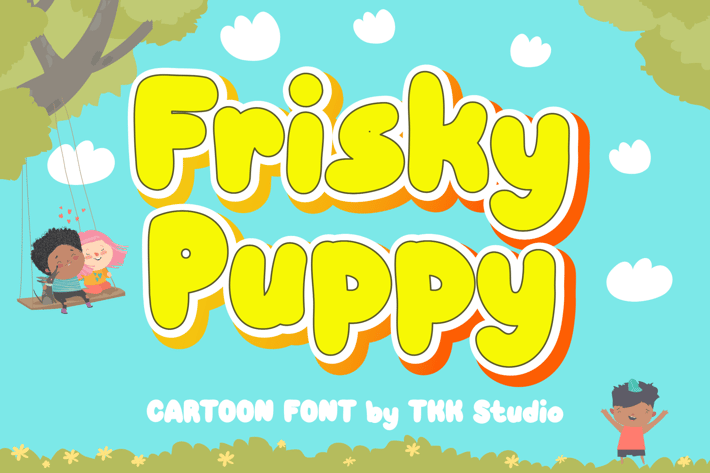
Frisky Puppy - Cartoon Font
Kids Font Frisky Puppy is a bold, cartoon-style display font that features soft, chunky letterforms with smooth curves and a playful bounce. Its bubbly texture and rounded terminals give off a friendly, animated vibe—perfect for any project that needs a touch of childlike joy and colorful storytelling.
With a balance of geometric stability and expressive rhythm, Frisky Puppy offers easy legibility while delivering a dynamic visual personality. Whether you're crafting character-driven illustrations or fun merchandise tags, this font holds its own with delightful charm. Think of it as your design sidekick for lighthearted branding and storytelling.
From colorful YouTube thumbnails to toy packaging, children's birthday invites to game splash screens—Frisky Puppy is made for high-energy, kid-focused designs. It resonates with illustrators, children’s content creators, party stationery designers, and educational developers looking to instantly capture joyful attention. This font isn’t just cute—it’s clear, functional, and made to entertain young minds.
Key Features
✔ Soft Bubble Aesthetic
- Chunky rounded shapes with balanced proportions offer a friendly, accessible vibe.
✔ Optimized for Kids & Playful Brands
- Perfect for cartoon logos, mobile games, birthday themes, toys, apps, and kid-safe UIs.
✔ High Legibility & Personality
- Each letter is crafted to maintain clarity, even at small sizes or in energetic layouts.
✔ Versatile Across Media
- From print to screen, its bold curves and cheerful tone adapt easily to any format.